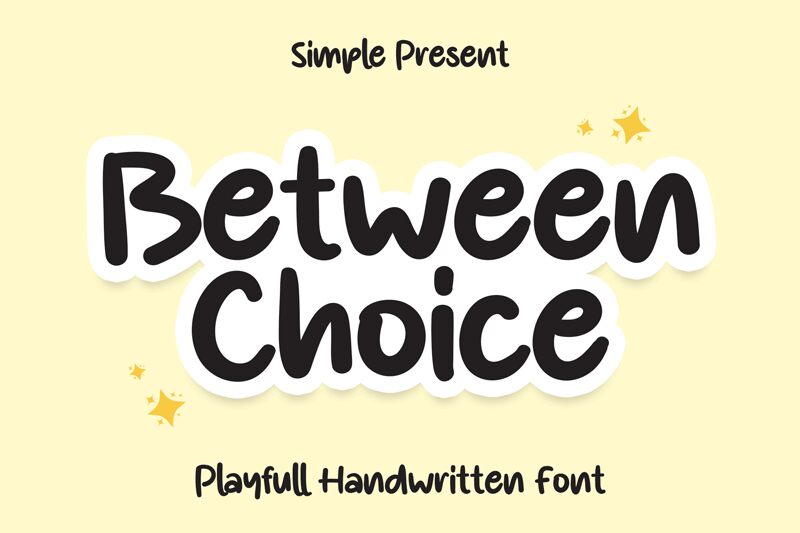
Between Choice
Between Choice, a playful handwritten font designed by Scratchones, injects a touch of whimsy into any project. Its semi-bold weight adds visual impact without overwhelming the eye.
This versatile font is perfect for creating fun party invitations, vibrant posters, or charming children's book covers. It also adds a personal touch to scrapbooking projects and DIY crafts.
With Between Choice, let your creativity flow as you bring joy and liveliness to your designs.